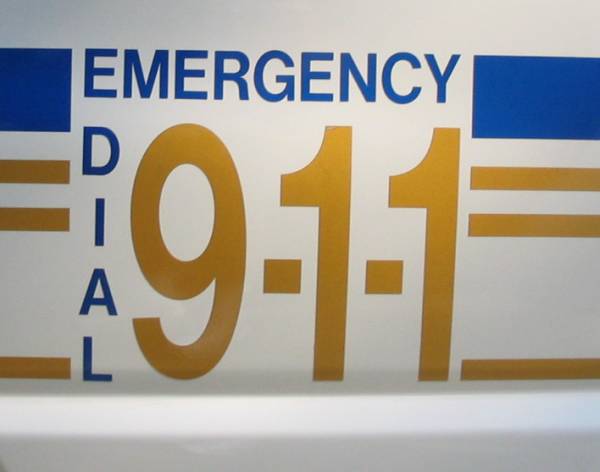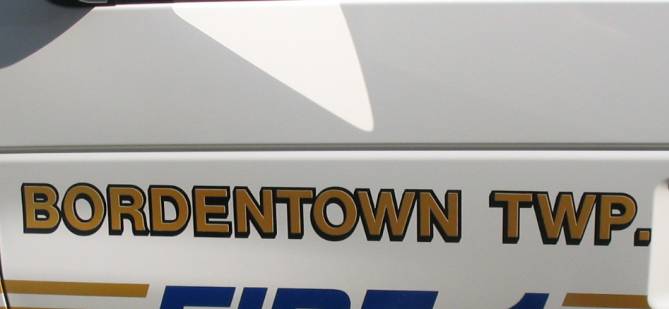
Looks like they are pretty basic fonts but I am trying to get as close as possible for a job to match up on a similiar vehicle. If anyone has an idea it would be appreciated.